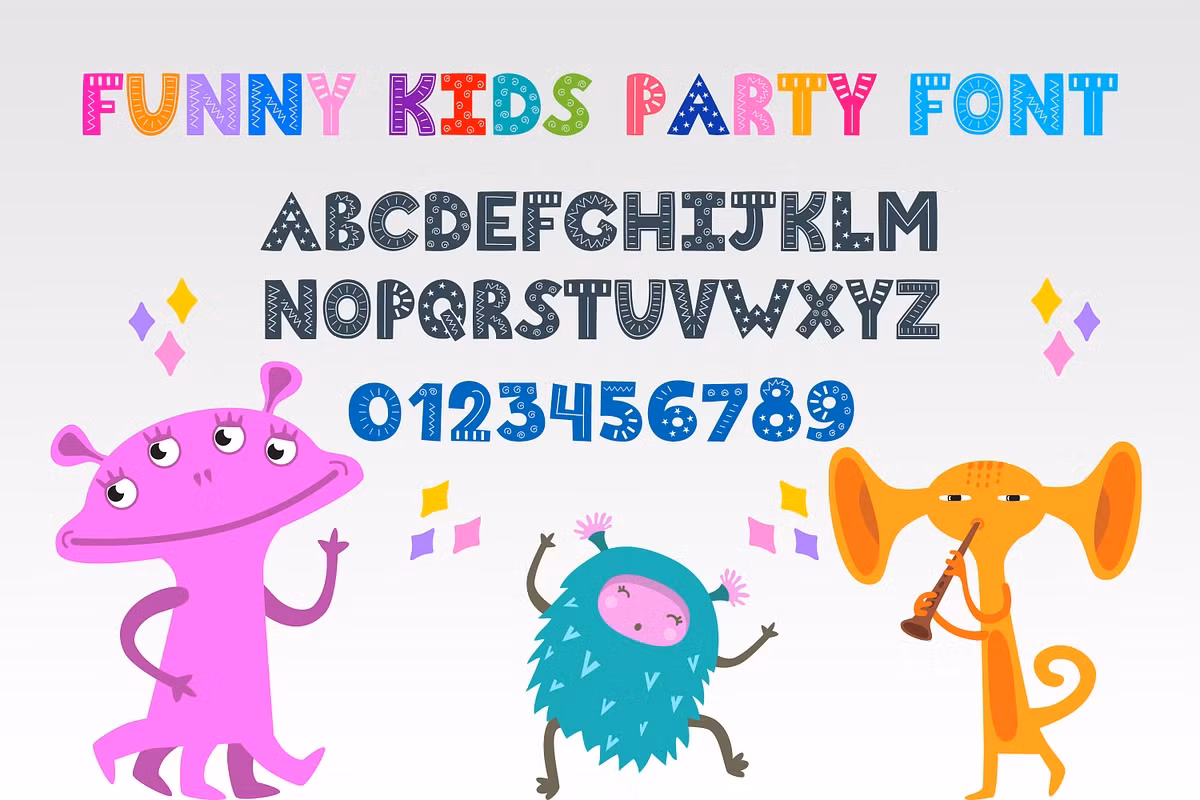
Funny Kids Party Font Free Download is a bright, cheerful typeface bursting with energy and joy—perfect for children’s birthday invitations, party banners, toy packaging, kids’ apparel, and educational materials. Its chunky letterforms, playful curves, and bouncy rhythm make it irresistibly fun and super easy to read, even for little eyes.
Get the party started with Funny Kids Party Font Free Download and bring your designs to life with vibrant, kid-friendly flair. It’s the perfect pick for anyone looking to add laughter, color, and creativity to their font collection.